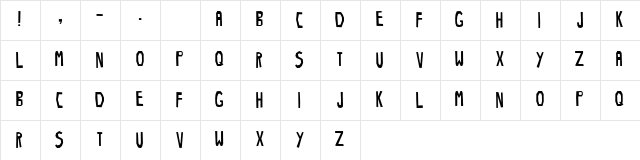
Stinko Regular Font Preview
Stinko Regular
Stinko Regular Font Details
Design Context for Stinko Typeface
Stinko offers clean, dependable letterforms without strong stylistic allegiance, making it a practical choice for designers who need flexibility.
Pro Tip: Use Stinko in both headline and body roles to test its range before committing to a single application.